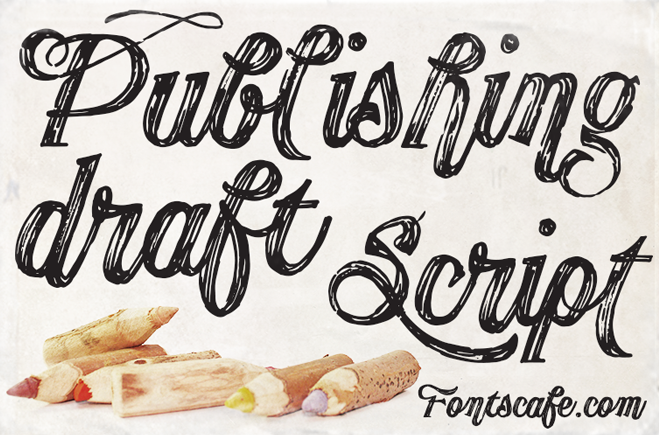
A mix of vintage-contemporary style that converges with the plots and designs that only nature can offer where seas, forests, jungles, and even, the exuberance and wild touch of the animal world are present, this and more is our "Publishing Draft Script"! A handmade drafted script with 105 variations, between alternatives and swashes, plus 32 exclusive stylistic Ligatures that encourage the evocation of the nature in any of its forms. Organic products, vegan plates and healthy concepts are perfectly introduced with an elegant handmade touch. Check the full version of "Publishing Draft Script" font here https://fontscafe.com/font/publishing-draft-script-font or the whole "Publishing Pack" here https://fontscafe.com/fonts-packages/publishing-script-pack. If then you're looking for the perfect complete solution you cannot miss the Mega Pack: Ottanio and Publishing Script together, check it out here: https://fontscafe.com/fonts-packages/ottanio-and-publishing-script-pack Terms of Use (short version): It's okay to use this DEMO version of "Publishing Draft Script" font for personal, non-commercial uses like designing greeting cards, invitations, labels, posters and even to create graphics for your personal blog. HOWEVER, if you decide to use this, or any other Fonts Caf� font for your business, please purchase a license: the prices are fair and you will be supporting a small, nice, independent font company. :) More... |